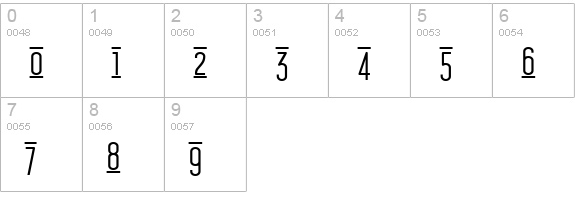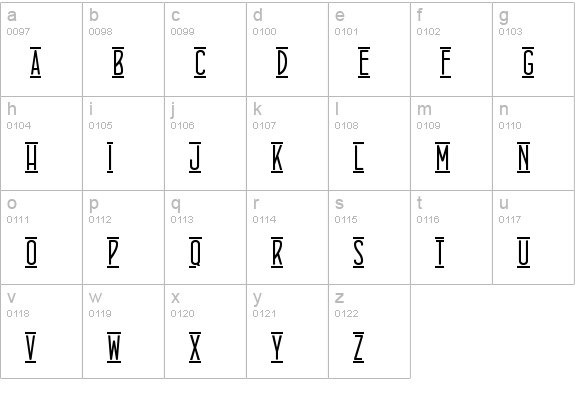
ConcursoItalian BTN Lined Font Details
ConcursoItalian BTN Lined font is a sleek and modern typeface that exudes elegance and sophistication. Its clean lines and stylish curves make it a perfect choice for a wide range of design projects, from branding to editorial design. The unique lined detailing adds a touch of flair and personality to any text, making it stand out from the crowd. Best of all, ConcursoItalian BTN Lined font is available for free download at FontsMarket.com. This means you can easily access this stunning typeface and use it in your projects without any cost. Whether you're a professional designer or a hobbyist looking to add a touch of class to your work, ConcursoItalian BTN Lined font is sure to impress with its versatility and charm. Download it today and elevate your designs to the next level!